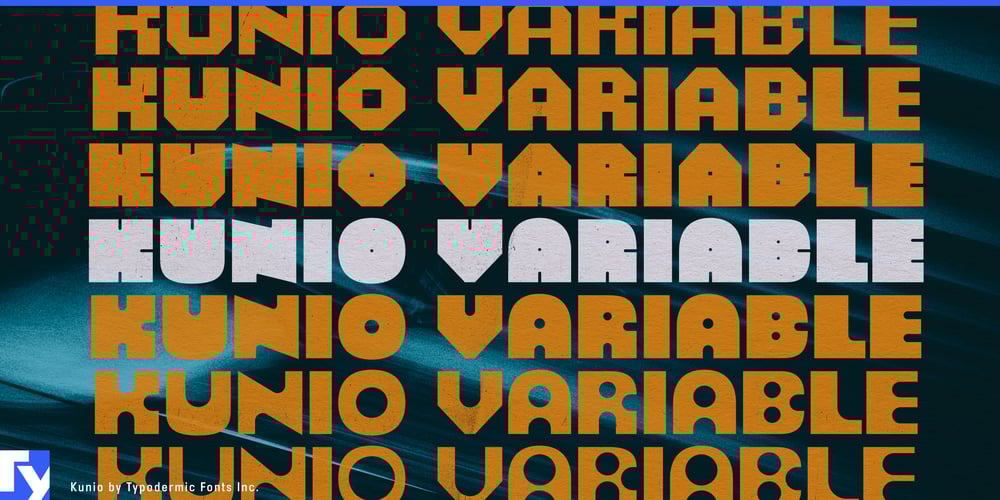
Kunio Variable Font Family was designed by Ray Larabie and published by Typodermic. Kunio Variable contains 1 styles and family package options. Step into the Kunio universe—where Art Deco meets cutting-edge typography in a dazzling dance of form and function. This isn’t just a font; it’s a shape-shifting chameleon, a typographic time machine that catapults the glamour of the Roaring Twenties into the digital age.Kunio isn’t content with being static. It’s a living, breathing typeface that morphs at your command. With variable font technology at its core, Kunio puts unprecedented power at your fingertips. The “body” slider is your magic wand, transforming letterforms from soft, sensual curves to sharp, architectural edges with a mere flick of the wrist. But Kunio’s metamorphosis doesn’t stop there. The “counter” slider is your ticket to typographic alchemy, transmuting the very soul of each character. From thin, round interiors that whisper of champagne bubbles to fat, square cavities that echo the bold geometry of Art Deco architecture—Kunio’s inner spaces are a playground for the imagination.With over a million possible combinations, Kunio is a font factory. And for those moments when choice feels overwhelming, Kunio’s presets are like a Typography GPS, guiding you to design destinations you never knew existed. Linguistically, Kunio is a globetrotter. From the bustling boulevards of Paris to the sun-drenched plazas of Lisbon, this typeface speaks the language of design with a polyglot’s fluency. Supporting a vast array of Latin-based European writing systems, Kunio ensures your message resonates across borders and cultures with Art Deco flair.Ready to revolutionize your design process? Let Kunio be your typographic co-pilot. It’s a portal to a world where the opulence of the past collides with the infinite possibilities of the future. Don’t just design; orchestrate a visual symphony.